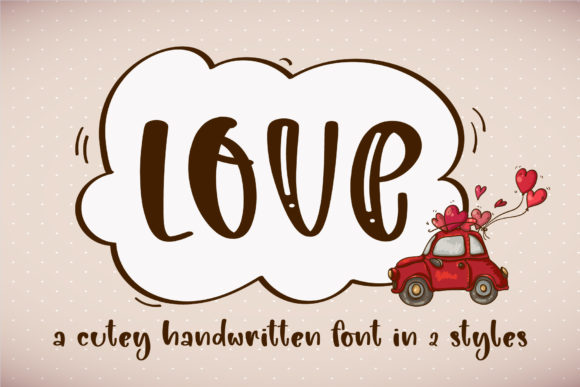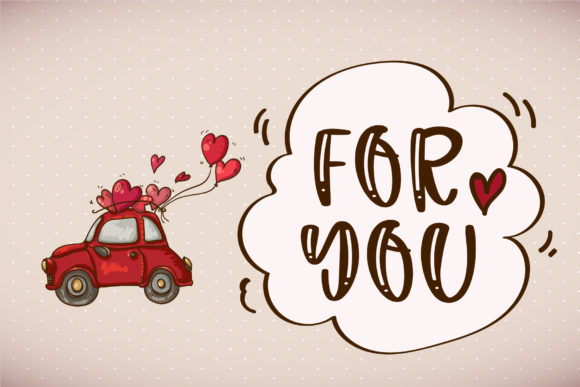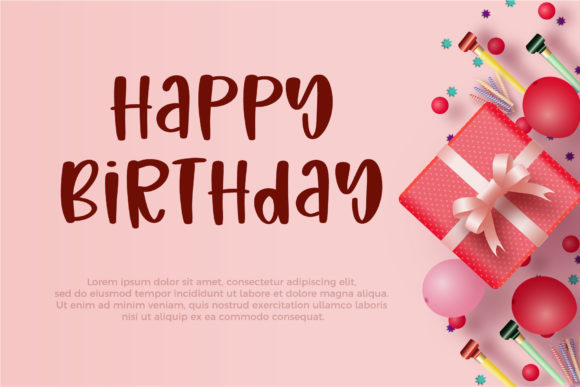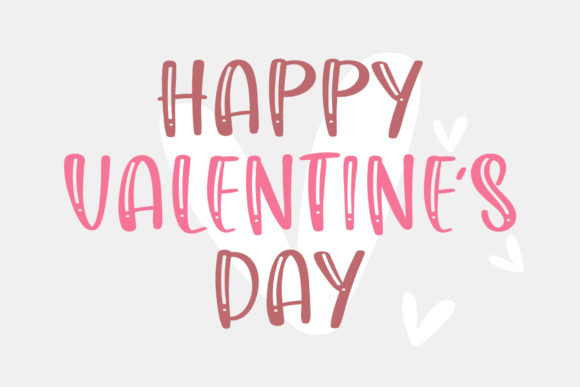
About Love Font
Introducing “Love,” a cute handwritten font that brings a lively and playful touch to your designs. With its charming and joyful style, this font is perfect for adding a dose of happiness and whimsy to your projects.
“Love” captures the essence of handwritten script with its organic and flowing letterforms. Each letter is crafted with care, featuring subtle variations in stroke thickness and playful embellishments. This gives the font a natural and lively feel, as if it were written with a pen or brush.
The sweetness of “Love” is evident in its lively curves and friendly demeanor. The letters exude a sense of warmth and positivity, making them perfect for spreading love and joy in your designs. Whether you’re creating greeting cards, invitations, social media posts, or any other project that needs a touch of cheerfulness, “Love” will bring a smile to your audience’s face.
One of the key features of “Love” is its versatility. It works well in a variety of design contexts, from children’s projects to romantic themes and beyond. Its playful style can be used to create eye-catching logos, fun typography, or decorative elements that add a whimsical touch to your designs.
The readability of “Love” is also worth mentioning. Despite its playful and lively appearance, each letter is carefully crafted to ensure legibility. The spacing and proportions are thoughtfully considered, allowing the text to be easily read and understood. This ensures that your message is effectively conveyed, even while maintaining the font’s charming and handwritten aesthetic.
In conclusion, “Love” is a cute handwritten font that adds a touch of liveliness and charm to your designs. Its playful style and sweet demeanor make it ideal for projects that require a bright and joyful look. Spread love and positivity with “Love” by incorporating it into your greeting cards, invitations, social media posts, and more. Let this font bring a smile to your audience’s face and brighten up your designs with its delightful presence.